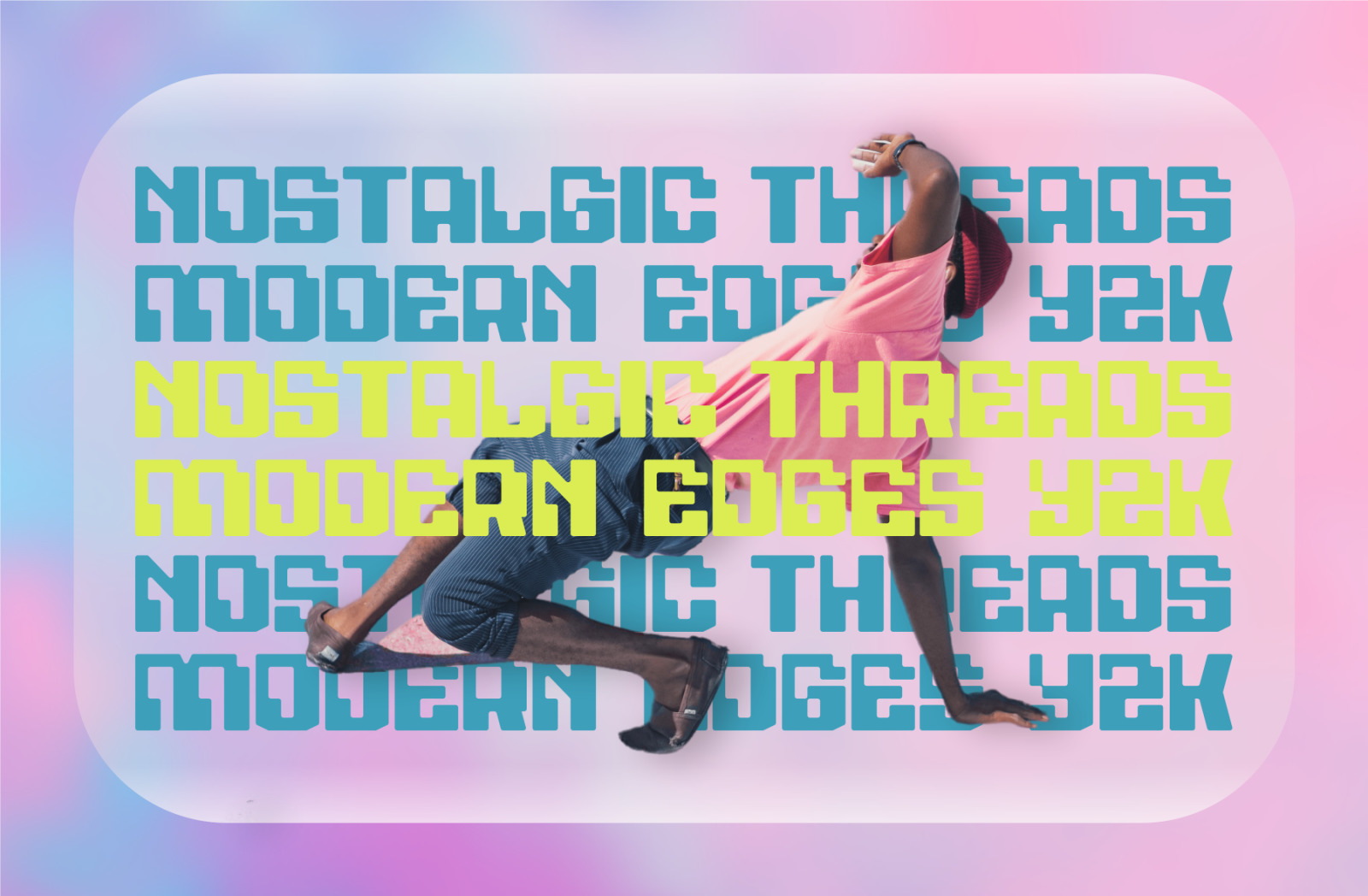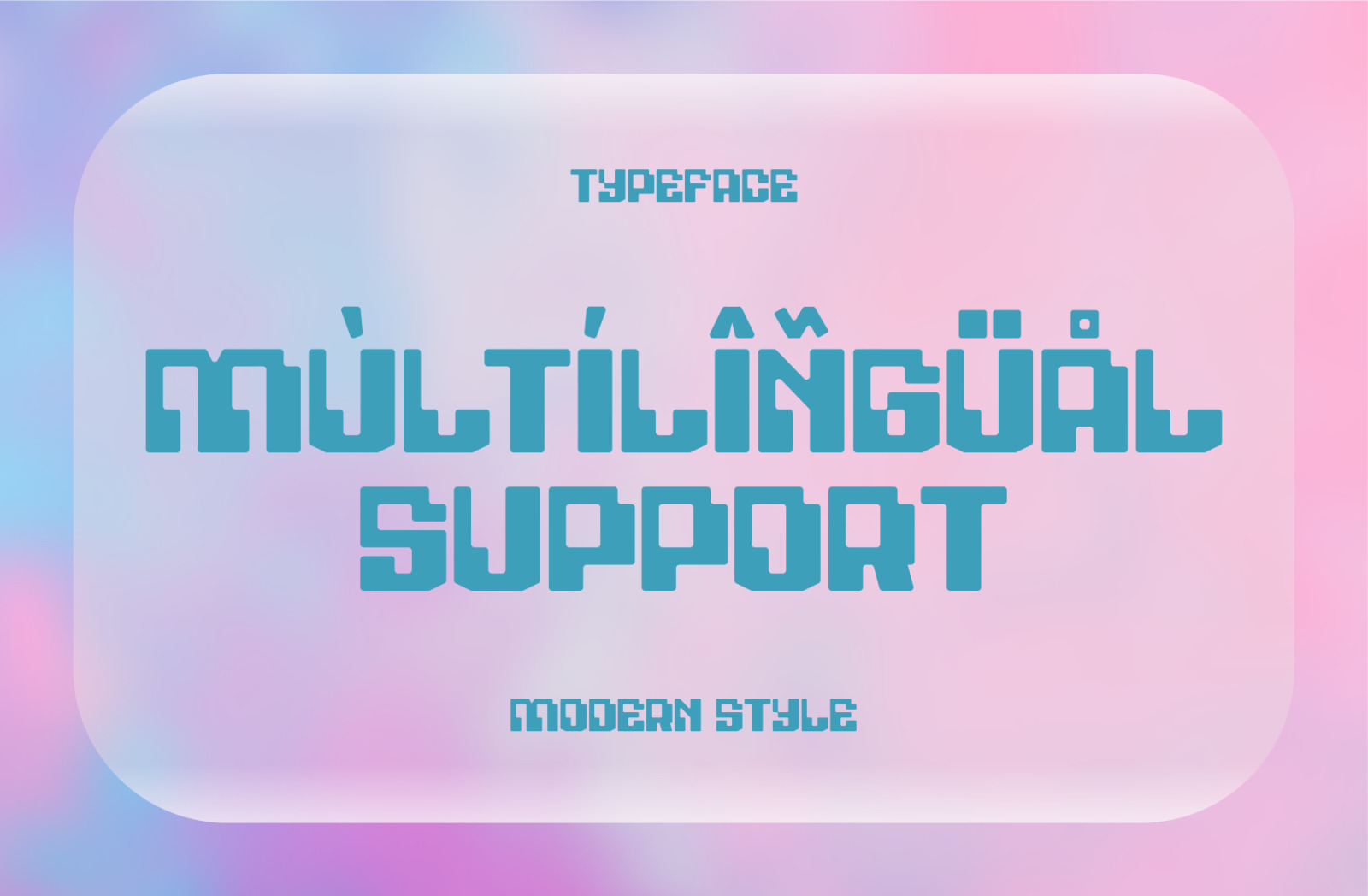
Noser - A Modern Y2K Font
Introducing our new product **Noser Font** - Modern Font
**Noser Font** - Modern Font is a bold and authentic display font. The font is suitable for any branding project like logo, Template Design, Product and many more. outstanding in a wide range of contexts.